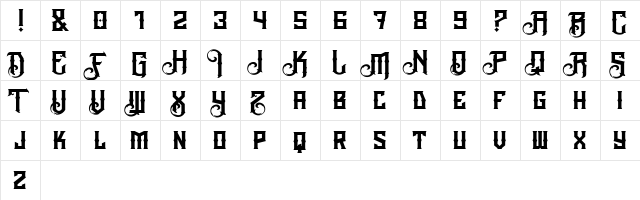
The Black Veil Pro Font Preview
| Foundry | Mikrojihad |
| Designer | Mikrojihad |
Design Context for The Black Veil Pro Typeface
The Black Veil Pro is a composed and adaptable typeface that performs quietly and consistently across a wide range of design contexts.